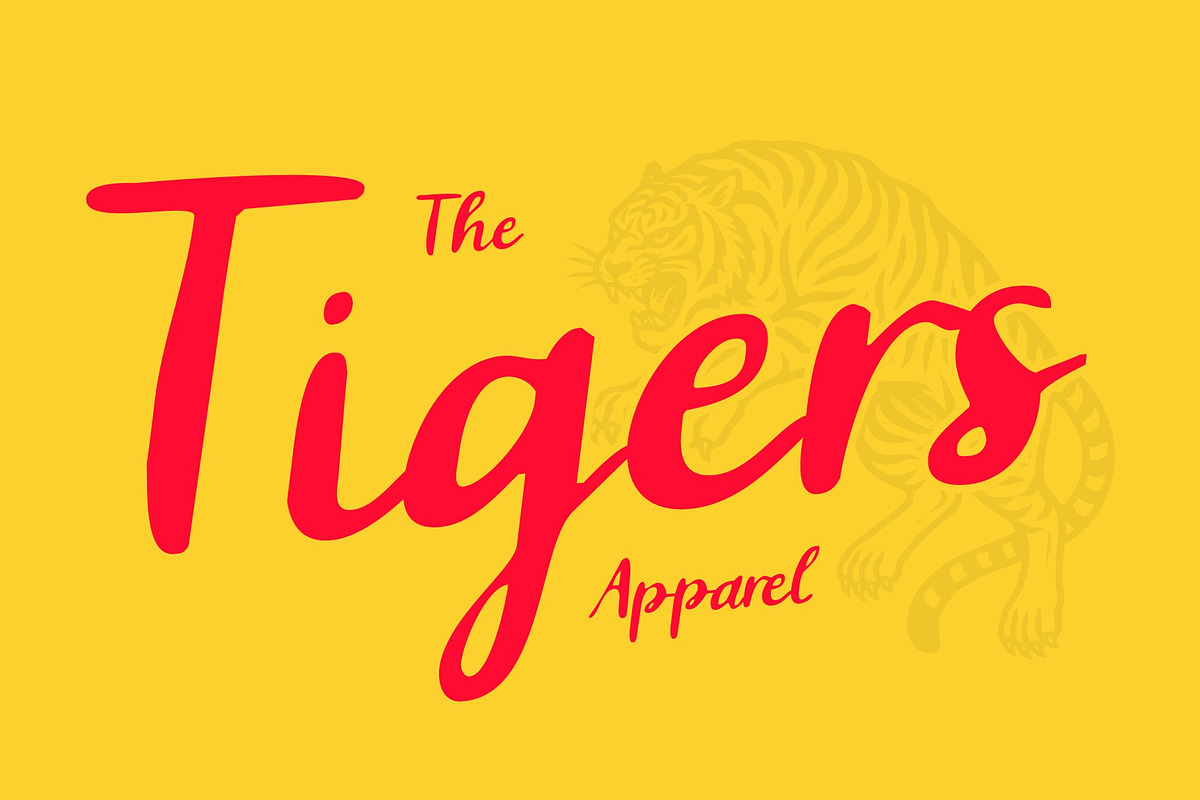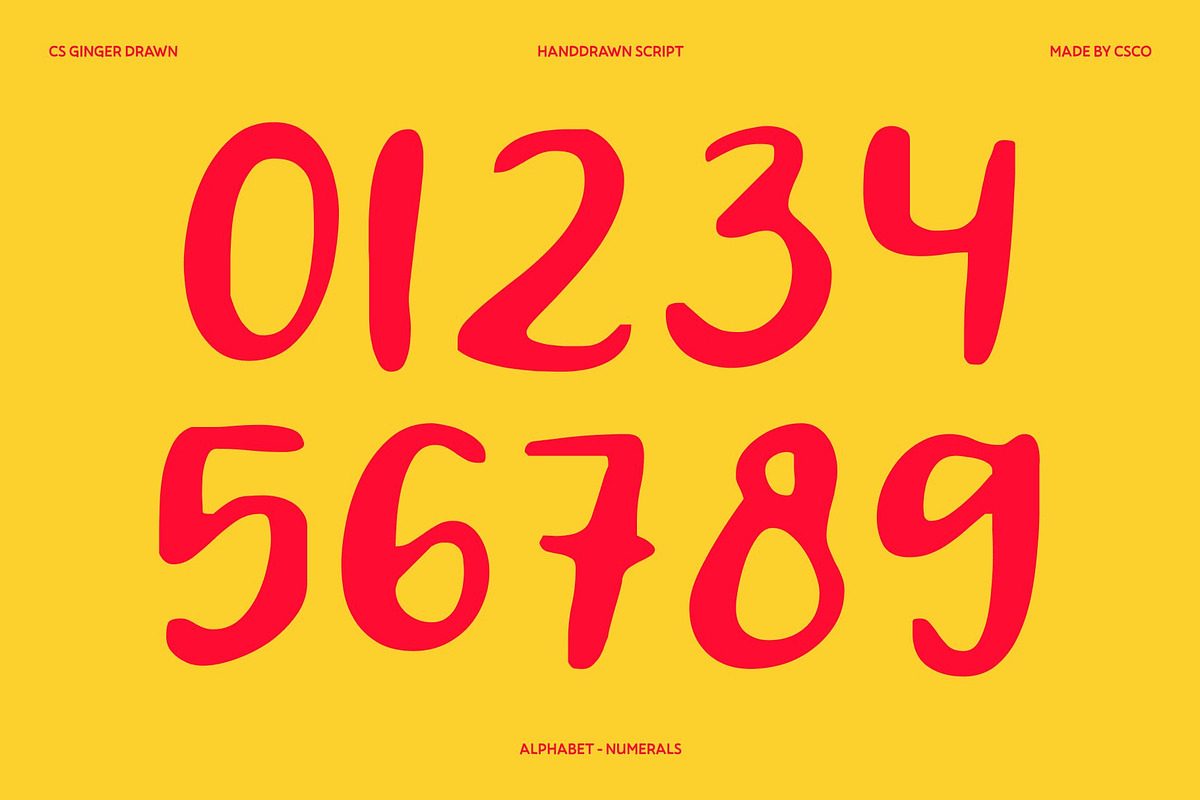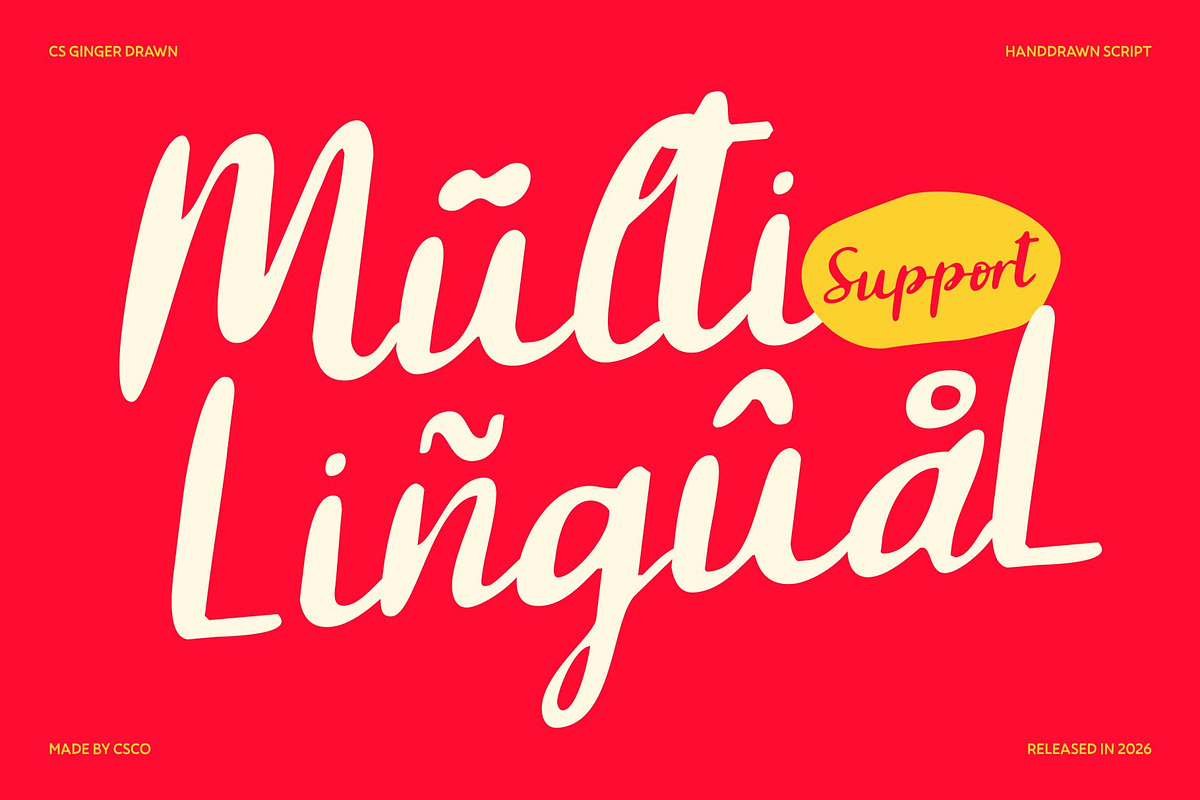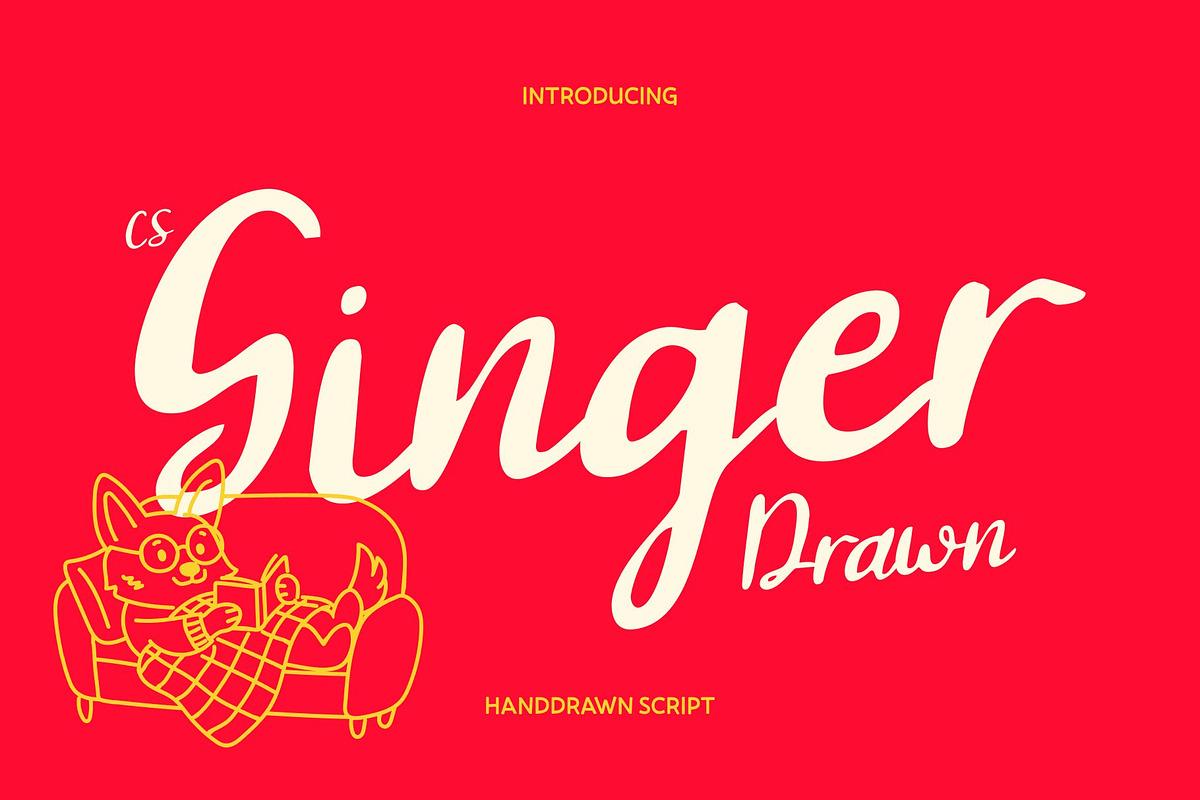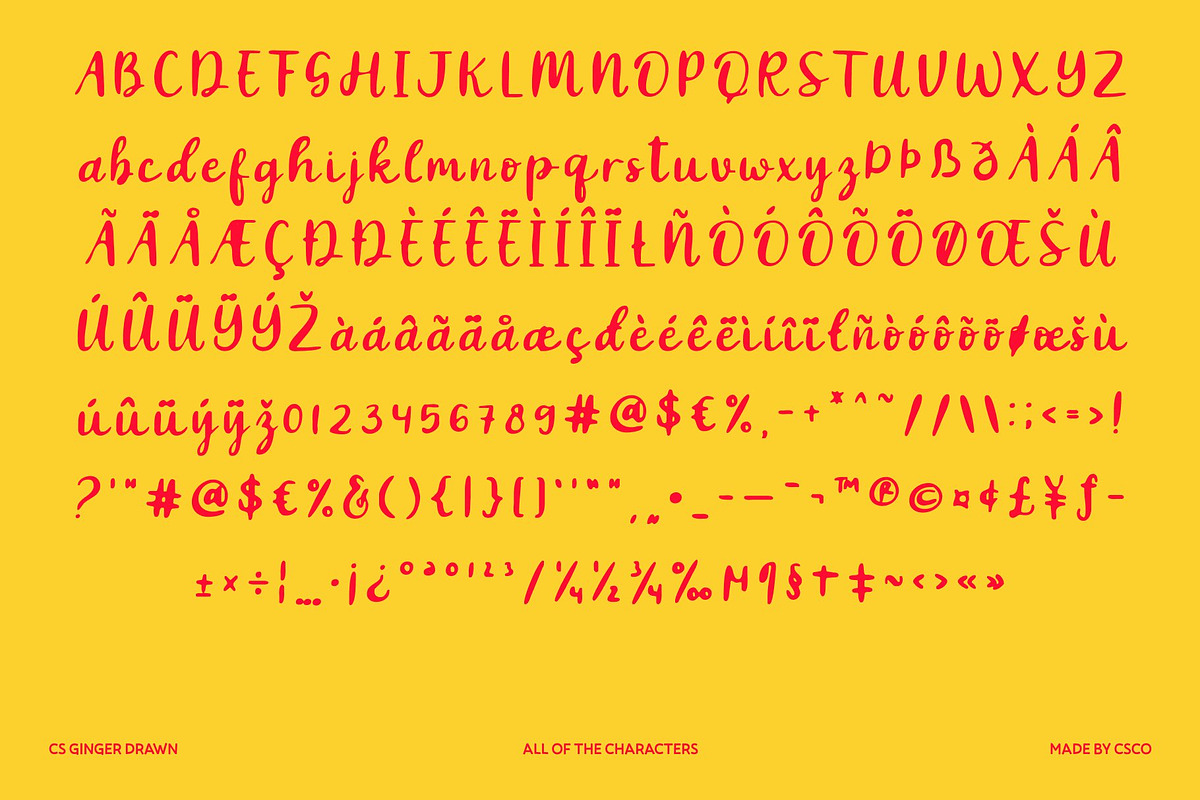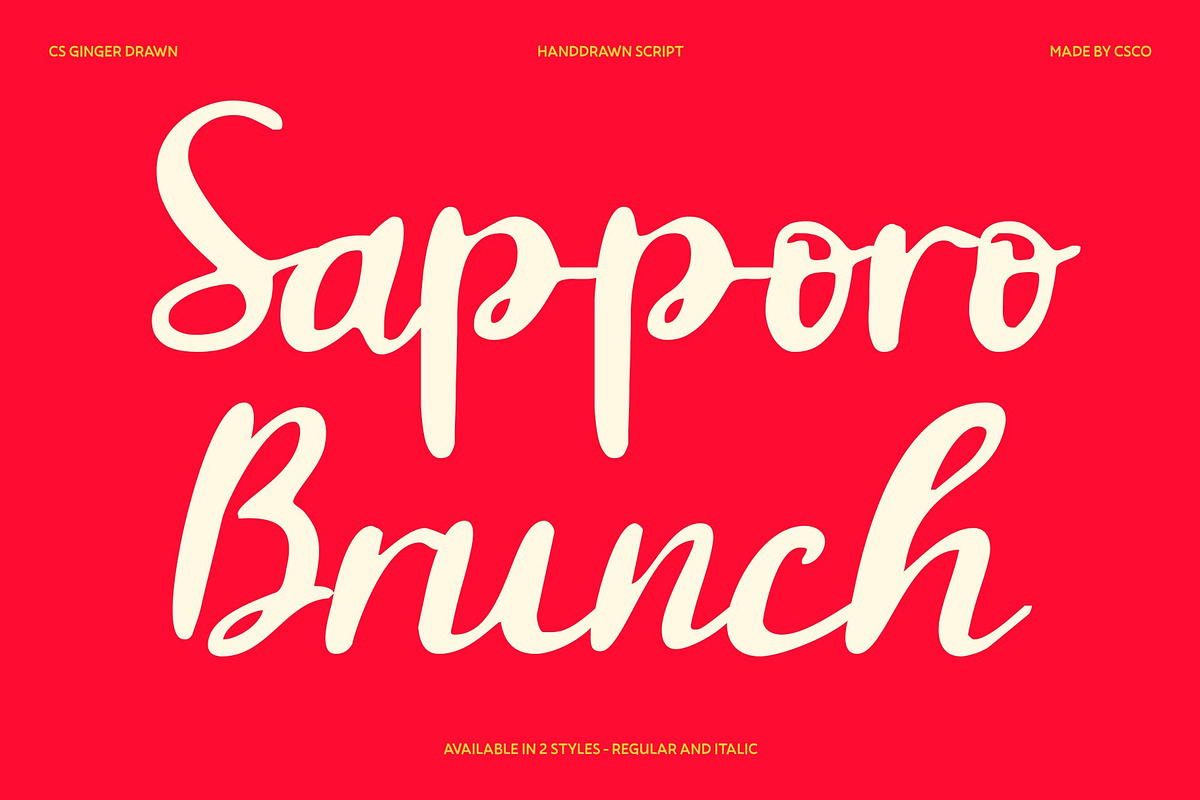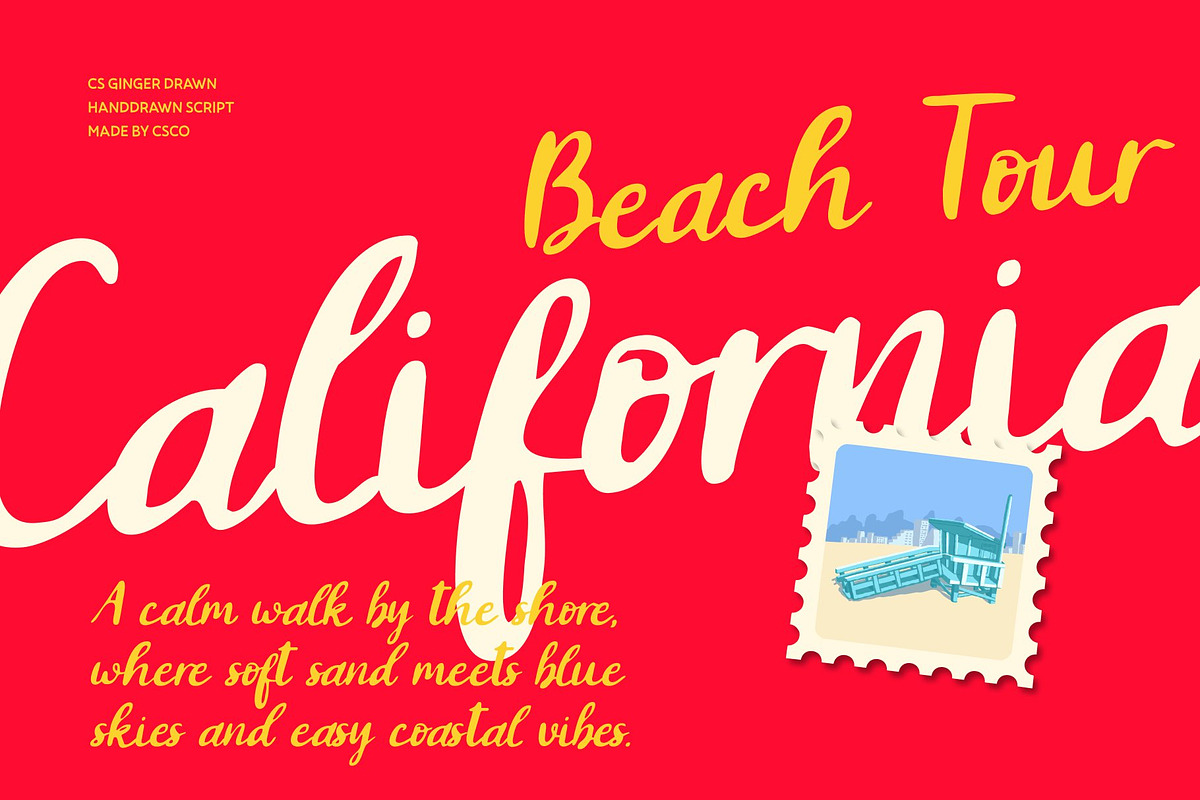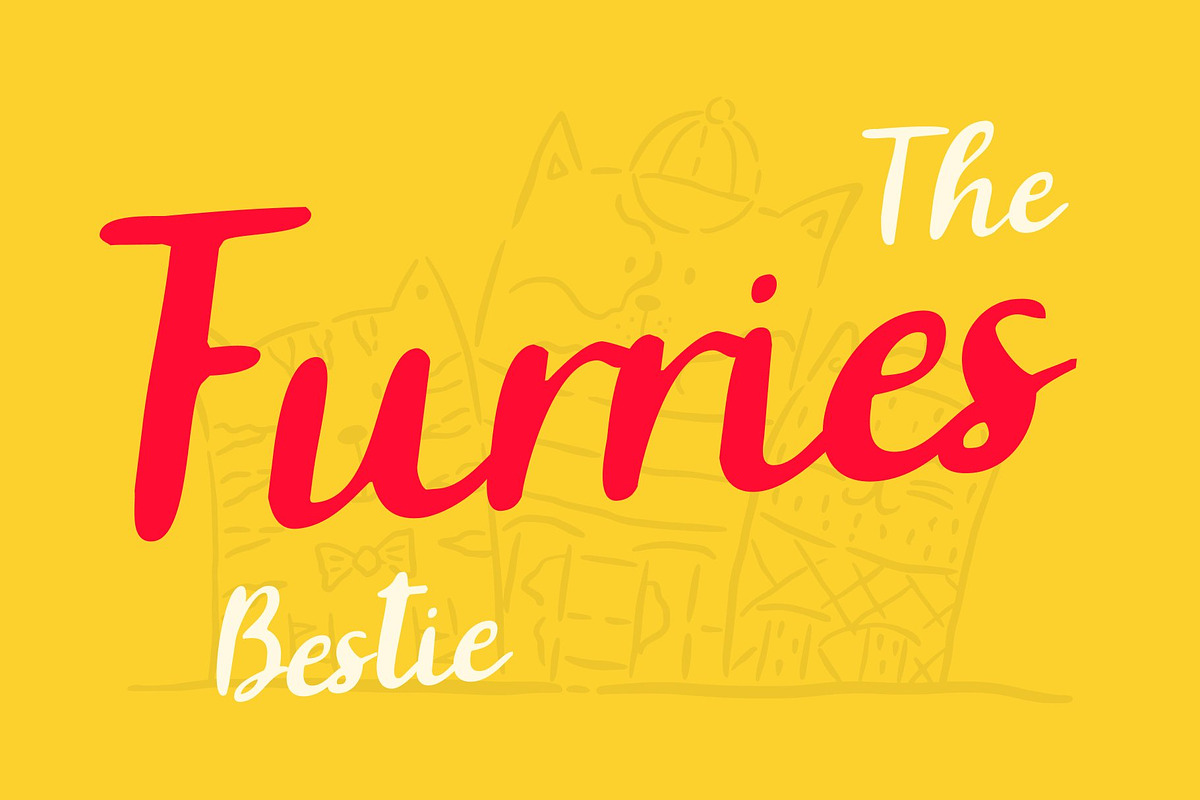
CS Ginger Drawn
CS Ginger Drawn – Sunny Mediterranean Charm with Coastal Warmth
Mediterranean Script Font with Relaxed Character This is a Mediterranean script font created to capture the warmth, brightness, and relaxed rhythm of coastal living. Inspired by sunlit shores, sea breezes, and carefree summer days, this font delivers a friendly handwritten style filled with ease and authenticity. The added drawn texture enhances its natural charm, making every letter feel personal and inviting.
Soft Curves with a Sunny Personality The letterforms feature smooth curves and flowing connections that reflect a laid-back Mediterranean atmosphere. Each character moves effortlessly, creating a harmonious rhythm that feels warm and approachable. Its sunny personality brings joy and optimism to any composition, expressing travel spirit and coastal beauty without feeling formal or rigid.
Relaxed Style for Expressive Storytelling With its casual script style, this font is perfect for expressive and lifestyle-driven storytelling. The font carries a relaxed elegance that celebrates nature, culture, and personal moments. Its hand-drawn look adds a human touch, helping designs feel genuine, emotional, and naturally engaging.
Perfect for Branding, Travel, and Summer Designs Designed for versatile creative use, this font works beautifully for branding, posters, packaging, travel themes, and social media visuals. Its Mediterranean charm makes it ideal for tourism brands, cafés, summer events, beachwear labels, and destination promotions that seek warmth, friendliness, and coastal character.